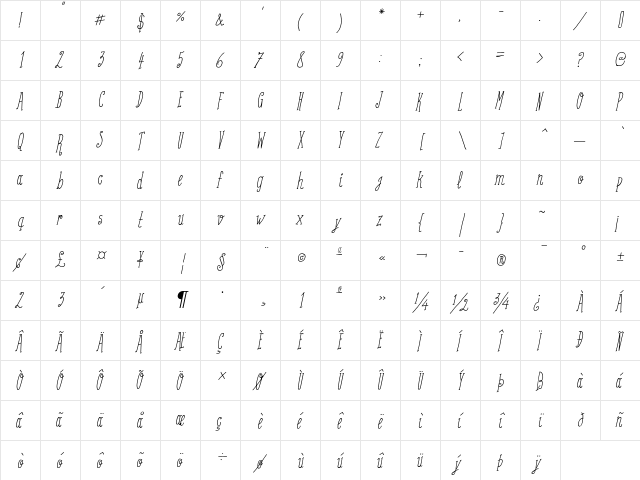
Coffee Written Italic Font Preview
Coffee Written Italic
Coffee Written Italic Font Details
| Foundry | Galdino Otten |
| Designer | Galdino Otten |
Design Context for Coffee Written Typeface
Coffee Written offers clean, dependable letterforms without strong stylistic allegiance, making it a practical choice for designers who need flexibility. The slanted form adds forward momentum and visual energy.
Pro Tip: Try Coffee Written for annotation and caption copy alongside an upright companion — the contrast in angle creates a dynamic but ordered typographic system.